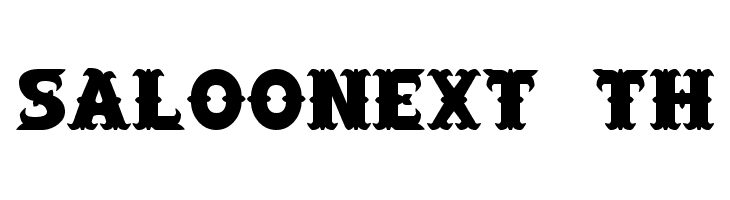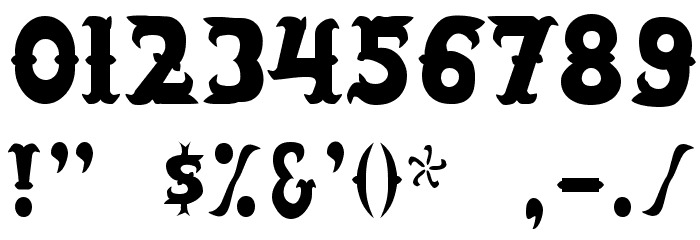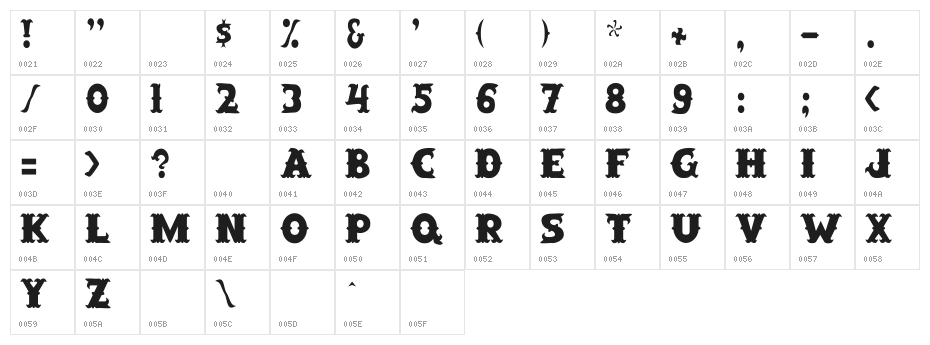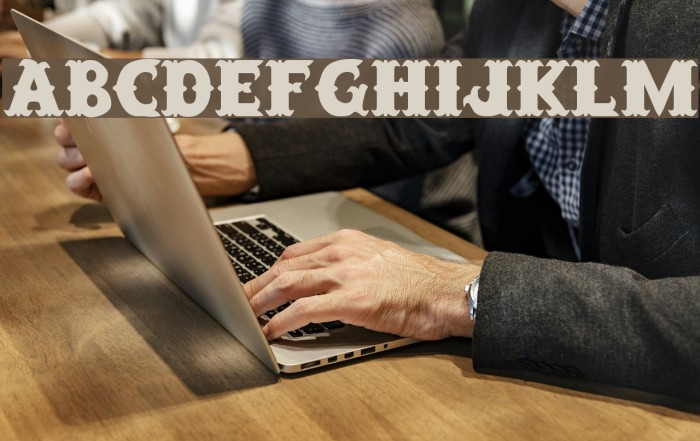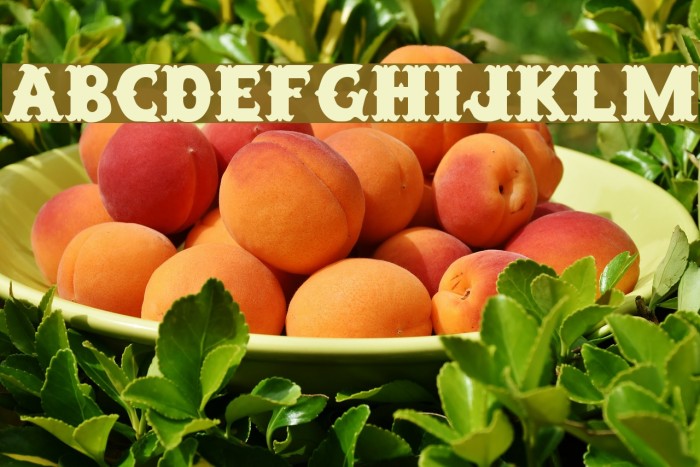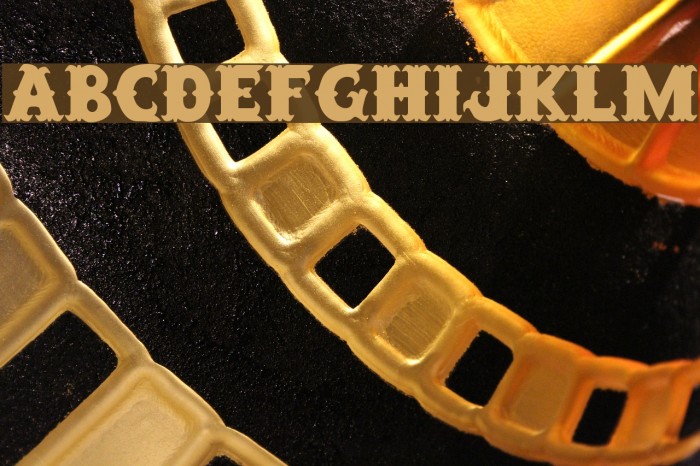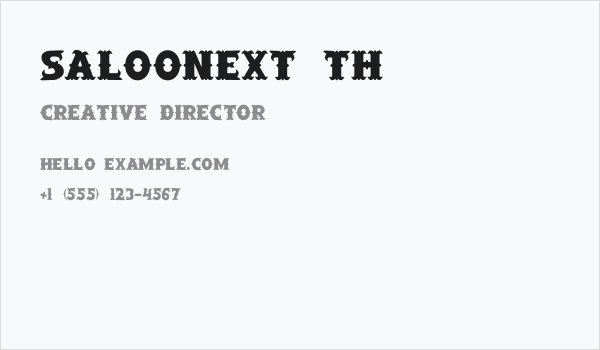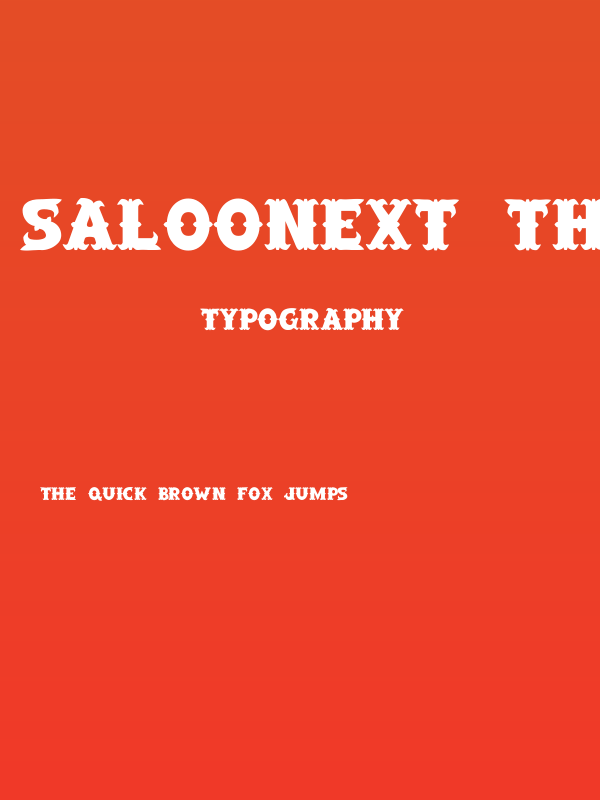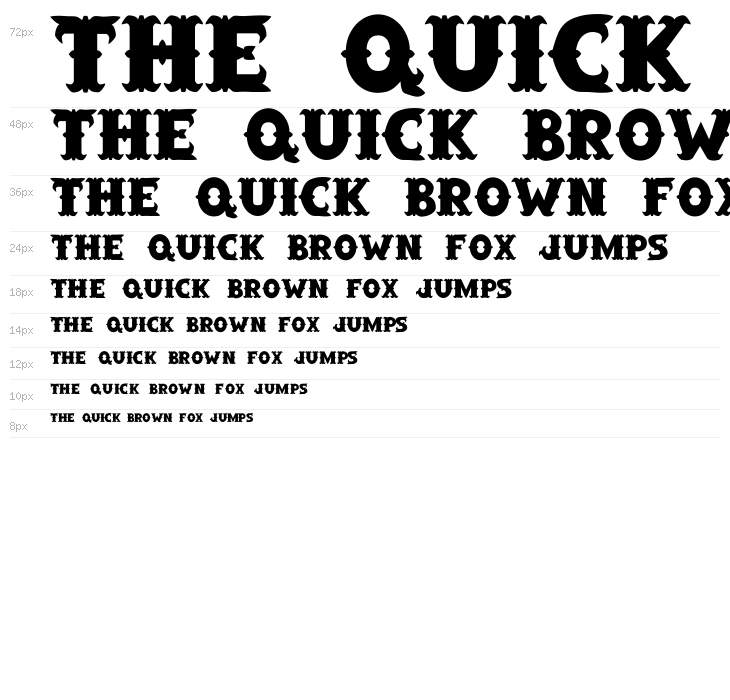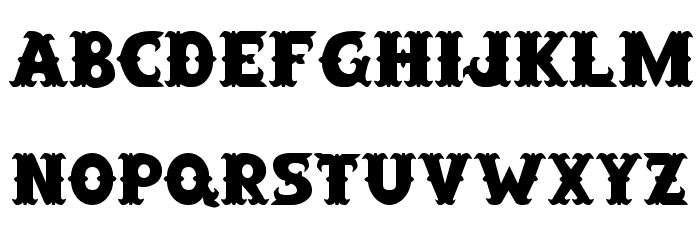
SaloonExt Th Font
This font features a bold and decorative style with a distinctly Western or vintage saloon aesthetic. The characters are heavily stylized with ornate serifs and unique cut-out shapes that give it a rugged, yet playful appearance. The uppercase and lowercase letters maintain a consistent design, emphasizing the boldness and intricate detailing. Numbers and special characters follow the same decorative theme, making the font suitable for creating eye-catching designs. The overall look is reminiscent of old-fashioned wanted posters or vintage signage, making it ideal for projects that require a touch of nostalgia or a Western theme.
A bold, decorative font with a vintage Western saloon style.
• Proposed Projects: Ideal for posters, signage, themed events, branding for Western-themed products, or any design needing a vintage touch.
• Category: Decorative/Display
• Bold: Yes
• Italic: No
• Weight: Bold
• Width: Normal
• Character Spacing: Normal
• Contrast: High
• Overall Style: Vintage
• Use Case: Headlines, Logos, Posters